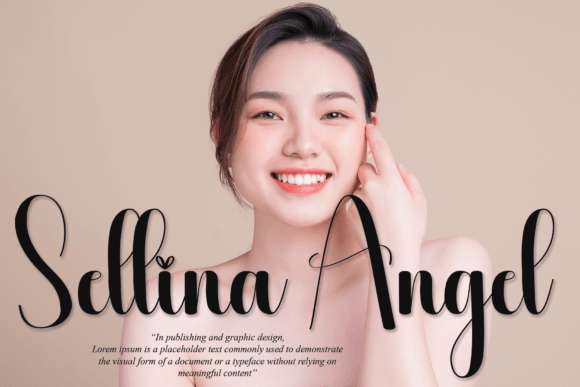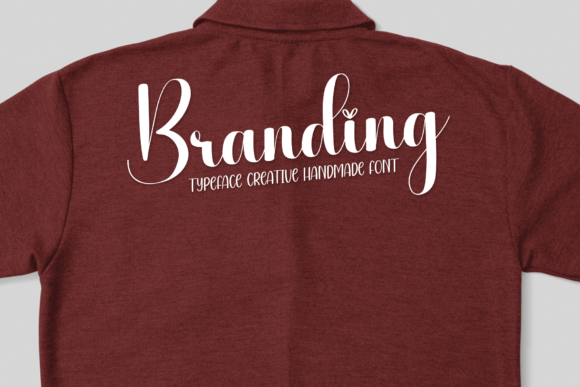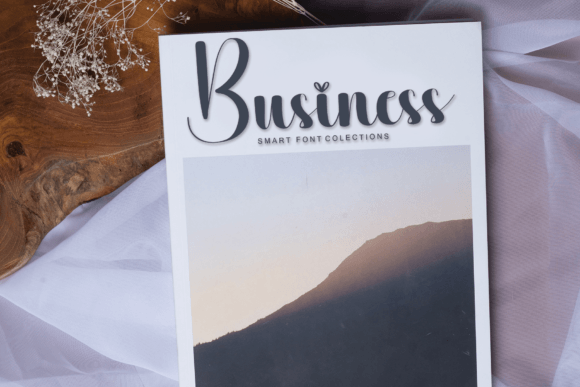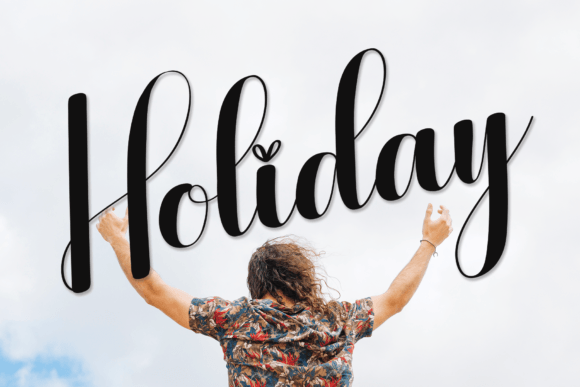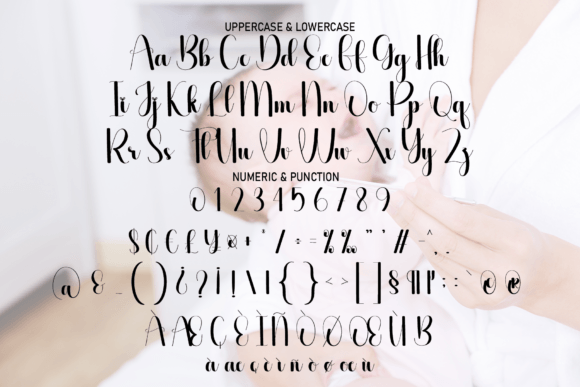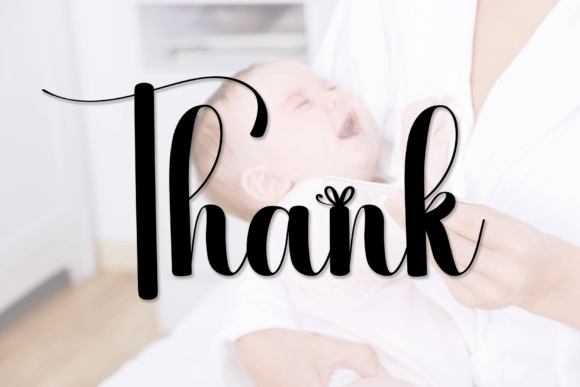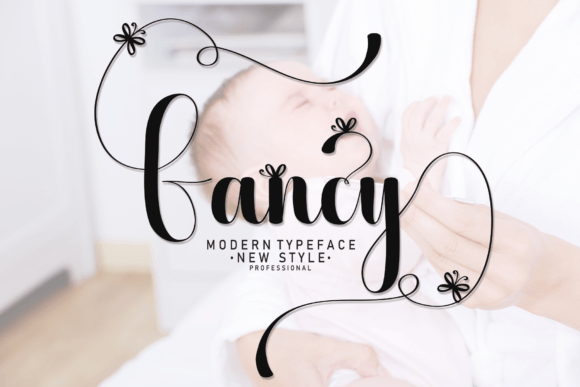
Fancy Font: Elevate Your Designs with Elegance and Sophistication
Fancy fonts have always been a staple in the world of design, adding a touch of elegance and sophistication to any project. Among the numerous fancy fonts available, one font stands out for its unique and timeless style – Fancy. Described as a flowing handwritten font with an elegant touch, Fancy is perfect for designers and crafters looking to create spectacular designs that leave a lasting impression.
The Charm of Fancy Font
Fancy font is a beautifully crafted font that exudes elegance and refinement. Its flowing handwritten style gives it a personal and organic feel, making it perfect for projects that require a touch of warmth and personality. The font’s elegant touch is evident in its smooth lines, curves, and swashes, which add a level of sophistication to any design.
Key Features of Fancy Font
- Incredibly Distinct Style: Fancy font boasts an incredibly distinct style that sets it apart from other fonts. Its unique blend of elegance and playfulness makes it perfect for a wide range of projects, from wedding invitations to branding and packaging.
- Timeless Appeal: Unlike trendy fonts that quickly go out of style, Fancy font has a timeless appeal that ensures your designs will remain stylish and relevant for years to come.
- Elegant Touch: The font’s elegant touch is perfect for adding a level of sophistication to your designs. Whether you’re creating a luxury brand or a wedding invitation, Fancy font is sure to impress.
- Versatility: Fancy font is incredibly versatile, making it suitable for a wide range of projects, including:
- Branding and packaging
- Digital graphics and social media assets
Tips for Using Fancy Font Effectively
To get the most out of Fancy font, here are some tips to keep in mind:
- Use it as a Headline Font: Fancy font is perfect for headlines and titles, where its elegant touch and flowing style can be showcased.
- Pair it with Simple Fonts: Pair Fancy font with simple, clean fonts to create a beautiful contrast that adds visual interest to your designs.
- Experiment with Swashes: Fancy font comes with a range of swashes that can add an extra level of elegance to your designs. Experiment with different swashes to find the one that works best for your project.
- Use it for Branding: Fancy font is perfect for branding and packaging, where its unique style and elegance can help create a lasting impression.
Why Designers and Crafters Love Fancy Font
Fancy font has become a favorite among designers and crafters for several reasons:
- Easy to Read: Despite its elegant and flowing style, Fancy font is incredibly easy to read, making it perfect for body text and captions.
- Highly Versatile: Fancy font can be used for a wide range of projects, from digital graphics to print materials.
- Unique Style: Fancy font boasts a unique style that sets it apart from other fonts, making it perfect for designers and crafters looking to create distinctive designs.
Fancy font is a beautiful and elegant font that can elevate your designs to new heights. Its unique style, timeless appeal, and versatility make it perfect for a wide range of projects, from wedding invitations to branding and packaging. Whether you’re a designer or crafter, Fancy font is sure to become a favorite in your toolkit. So why not give it a try and see how it can transform your designs?